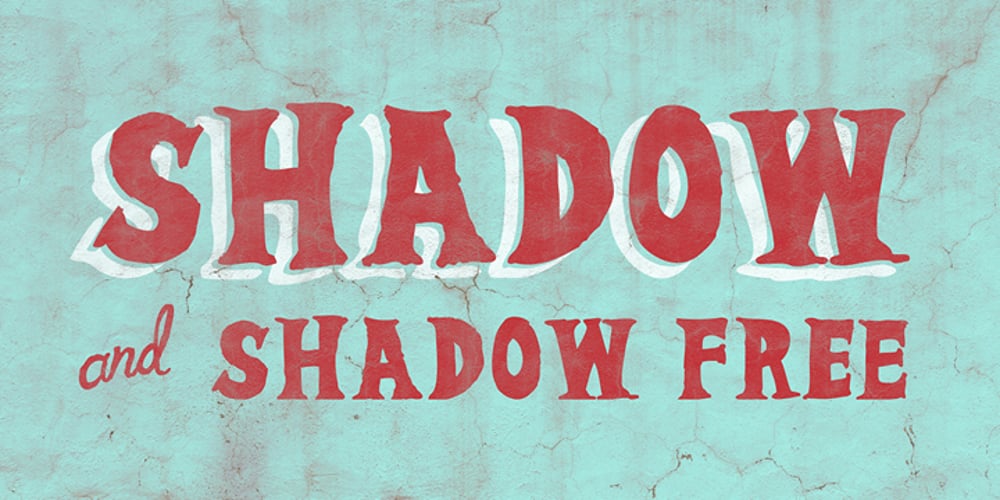
Taco Wagon Font Family was designed by Michael Tension and published by Tension Type. Taco Wagon contains 4 styles and family package options. Taco Wagon was inspired by Mexican hand painted lettering. I also wanted to make a font that had a separate file for the drop shadow so it could be coloured independently. Included are open type ligatures for most of the common double letters like “EE” “TT” “FF” etc. to give the font a more natural hand done look.